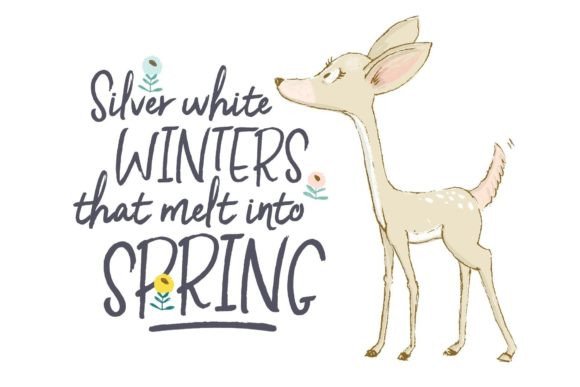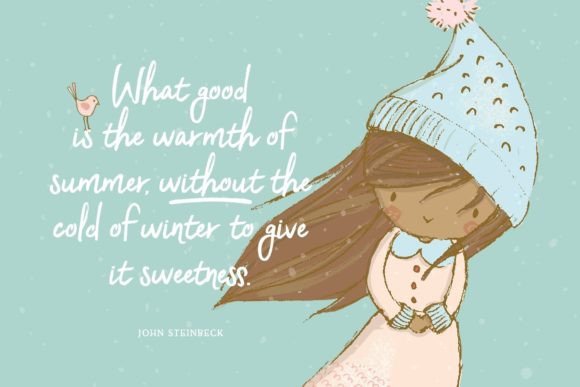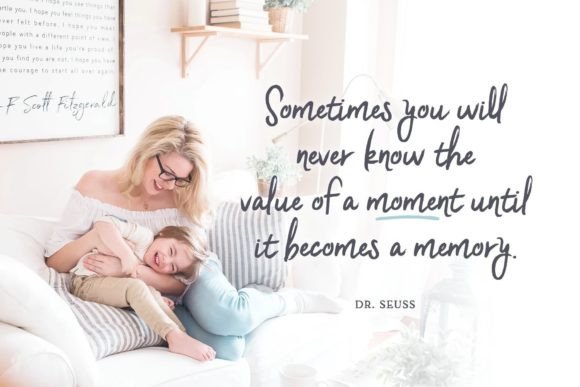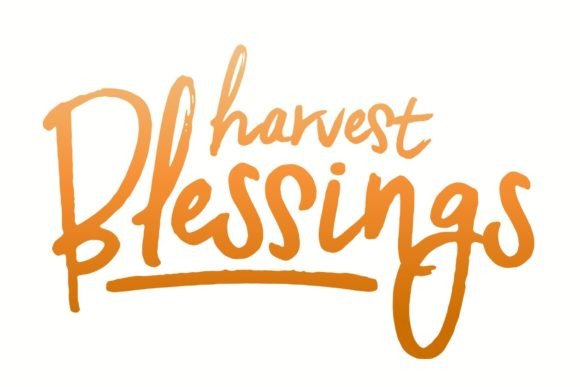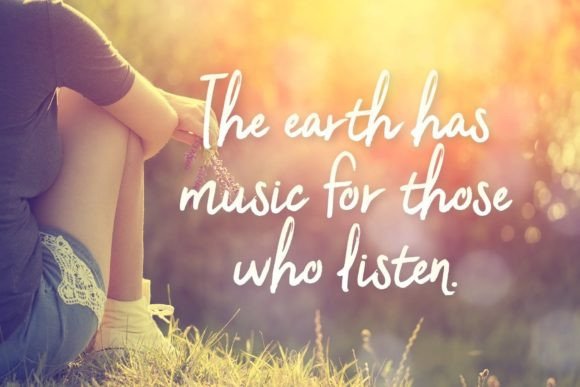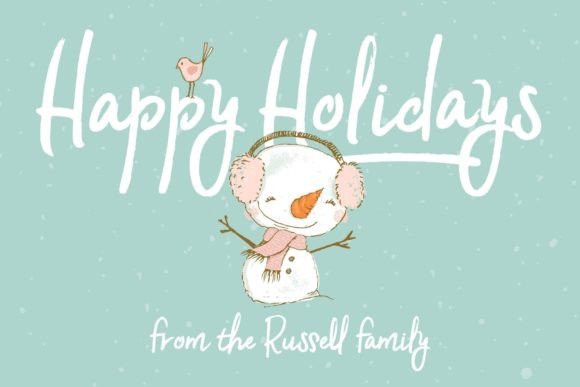
Bella Ray Font: Adding a Personal Touch to Your Designs
In the world of typography, fonts play a crucial role in conveying the tone and personality of a design. For crafters and designers looking to add a personal touch to their projects, Bella Ray font is an excellent choice. This beautiful, rough-edged script font is designed to give your work a casual, hand-drawn look that’s sure to capture attention.
What is Bella Ray Font?
Bella Ray is a script font that boasts a unique, rough-edged charm. Its casual, hand-drawn appearance makes it perfect for designers and crafters who want to add a personal touch to their projects. Whether you’re working on a branding project, a craft tutorial, or a social media graphic, Bella Ray font is sure to bring a touch of warmth and personality to your design.
Key Features of Bella Ray Font
So, what sets Bella Ray font apart from other script fonts? Here are some of its key features:
- Rough-edged charm: Bella Ray font has a beautifully rough, hand-drawn texture that gives it a unique and personal feel.
- Casual script style: This font features a casual script style that’s perfect for designers and crafters who want to add a touch of personality to their work.
- Ligatures and alternate characters: Bella Ray font includes some lovely ligatures and alternate characters that help to create a natural, hand-drawn feel.
Uses for Bella Ray Font
Bella Ray font is incredibly versatile, making it suitable for a wide range of design projects. Here are some ideas to get you started:
- Branding and logos: Use Bella Ray font to create a unique and memorable logo for your brand or business.
- Craft tutorials and patterns: Add a personal touch to your craft tutorials and patterns with Bella Ray font.
- Social media graphics: Use Bella Ray font to create eye-catching social media graphics that showcase your personality and style.
- Stationery and cards: Bella Ray font is perfect for creating beautiful stationery and cards that feature a personal touch.
Tips for Using Bella Ray Font
To get the most out of Bella Ray font, here are some tips to keep in mind:
- Use it sparingly: Bella Ray font is best used sparingly, as its rough-edged texture can be overwhelming if overused.
- Pair it with a simple font: Pair Bella Ray font with a simple font to create a beautiful contrast that showcases its unique texture.
- Experiment with colors: Bella Ray font looks great in a range of colors, so don’t be afraid to experiment and find the perfect hue for your design.
In conclusion, Bella Ray font is a beautiful, rough-edged script font that’s perfect for designers and crafters looking to add a personal touch to their projects. With its casual hand-drawn look, ligatures, and alternate characters, this font is sure to bring a touch of warmth and personality to your design. Whether you’re working on a branding project, a craft tutorial, or a social media graphic, Bella Ray font is an excellent choice.
Get Creative with Bella Ray Font
So, why not give Bella Ray font a try? With its unique texture and charming script style, it’s sure to inspire your creativity and help you to create beautiful, eye-catching designs. Whether you’re a seasoned designer or a crafty beginner, Bella Ray font is a great addition to your typography toolkit.